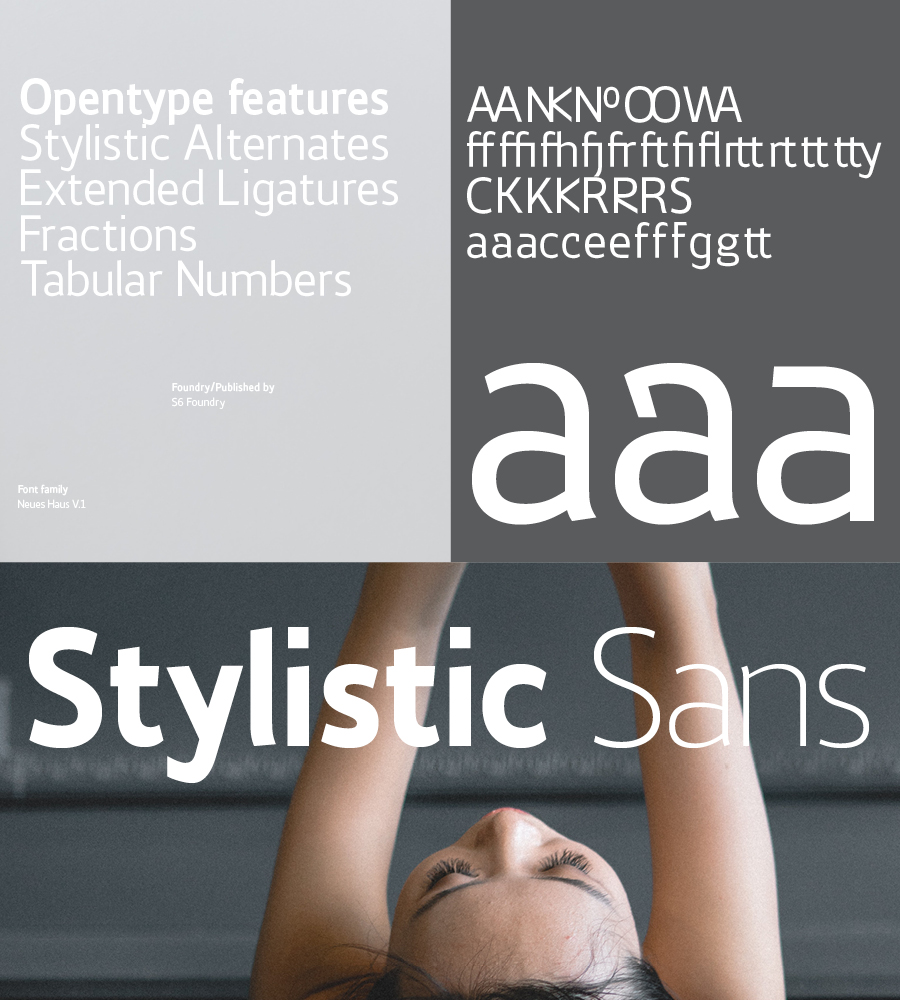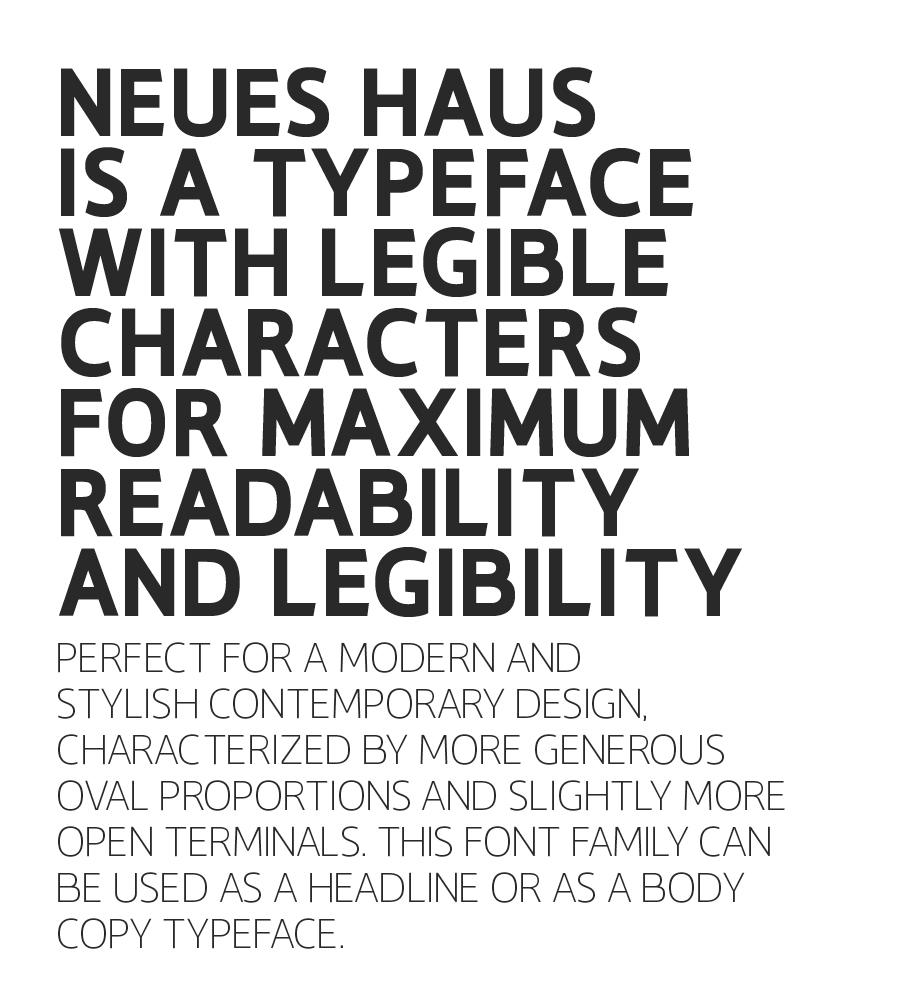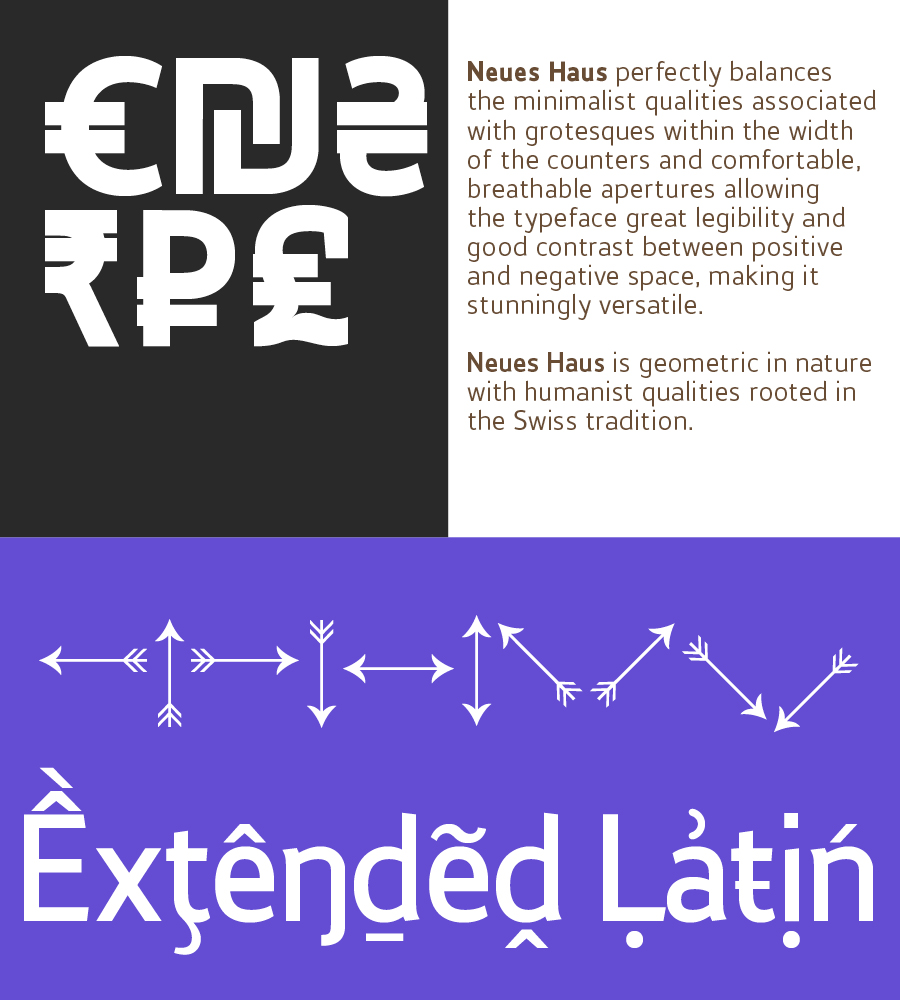
Neues Haus is a typeface with legible characters for maximum readability and legibility — perfect for a modern and stylish contemporary design, characterized by more generous oval proportions and slightly more open terminals. This font family can be used as a headline or as a body copy typeface and also includes a useful icon set.
Neues Haus perfectly balances the minimalist quality associated with grotesques within the width of the counters and comfortable, breathable apertures allowing the typeface great legibility and good contrast between positive and negative space, making it stunningly versatile.
Neues Haus supports up to 87 different languages such as English, German, French, Turkish, Polish, Kurdish (Latin), Azerbaijani (Latin), Romanian, Dutch, Hungarian, Kazakh (Latin), Serbian (Latin), Czech, Swedish, Belarusian (Latin), Croatian, Slovak, Finnish, Danish, Lithuanian, Latvian, Slovenian, Irish, Estonian, Basque, Luxembourgian, Icelandic, and Vietnamese in Latin and other scripts.